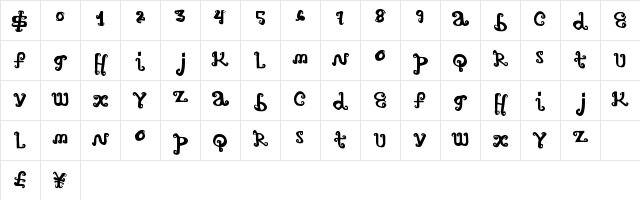
ArtTimes Regular
Foundry: Xerographer Fonts
Designer: Max Infeld
Design Context for ArtTimes
ArtTimes is a composed and adaptable typeface that performs quietly and consistently across a wide range of design contexts.